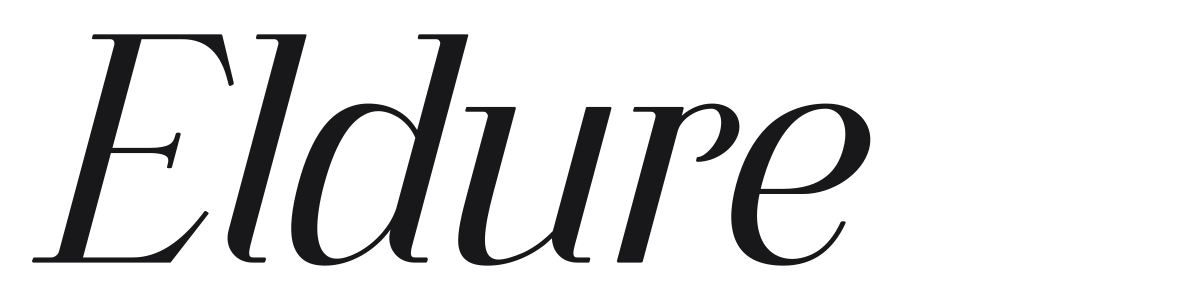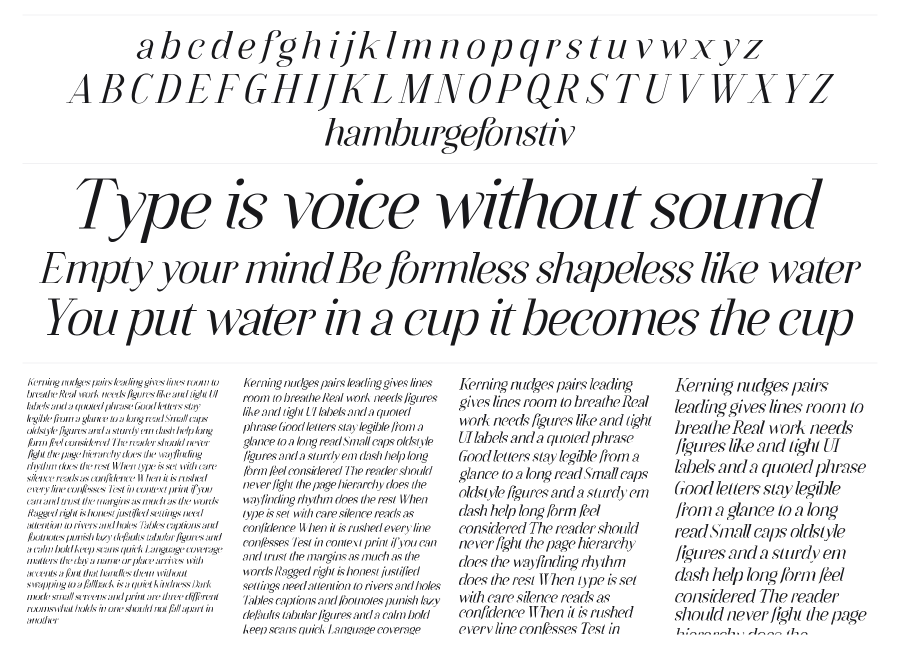
Eldure
Eldure is a high-contrast modern serif with dramatic hairline strokes and a graceful italic stance rooted in the Didone tradition. The fine serifs and sweeping curves give it an airy, fashionable quality that sits comfortably between editorial refinement and contemporary luxury branding. It reads best large, where the stroke contrast can breathe.